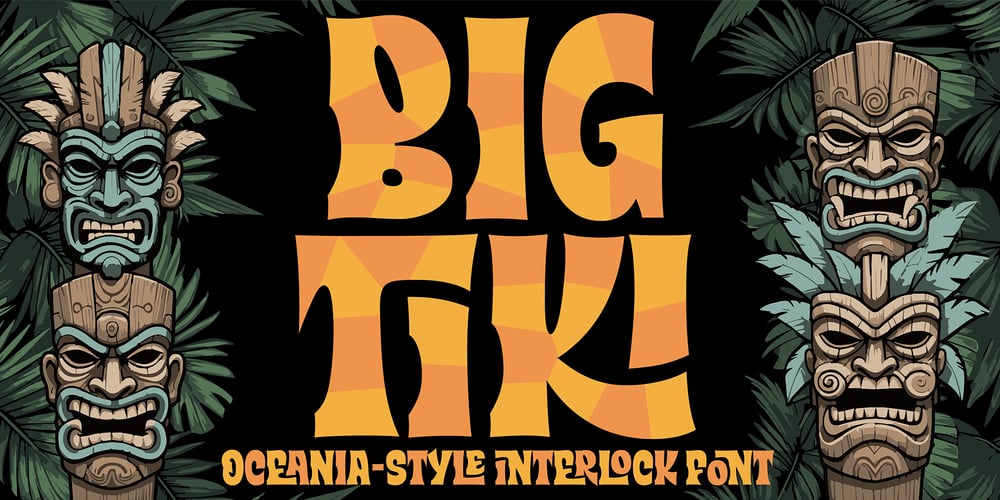
Big Tiki
Big Tiki font
Big Tiki Font Family was designed by Mott Jordan and published by Mysterylab. Big Tiki contains 2 styles and family package options. Big Tiki is a typographic ode to the Pacific, Oceania, and all the rich design motifs and cultural traditions that have flowed from there around the globe, and enriched and widened our range of aesthetics. This is among the most versatile of tiki-styled fonts, in that it’s also evocative of mid-20th century cartoon art, lounge graphics, 1960s television show logos with interlocking ligatures, not to mention more recent “second-wave” cartoon shows such as Spongebob, Flapjack, and others that saw a resurgence in the early 2000s. Big Tiki’s core vibe will cover surfing, skateboarding, luaus, tiki-theme parties, beachwear, comics and cartoons, 1950s kitsch, Easter Island stone heads, and just about anything that needs a little flavor of pineapples, coconuts, and irreverence.